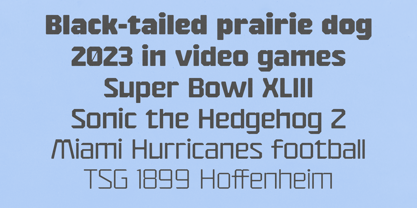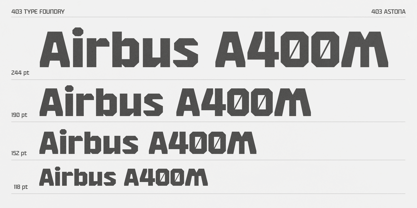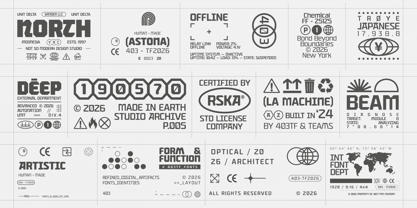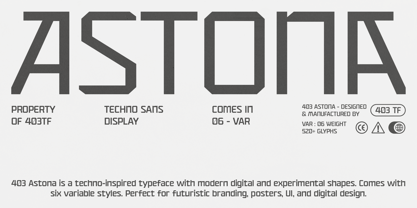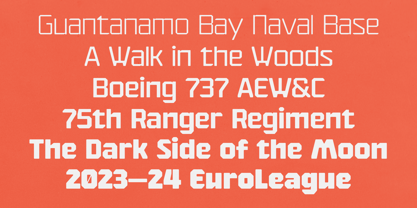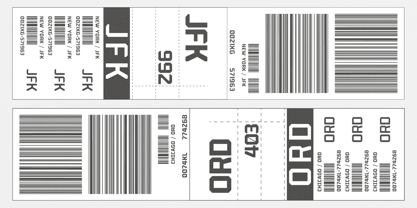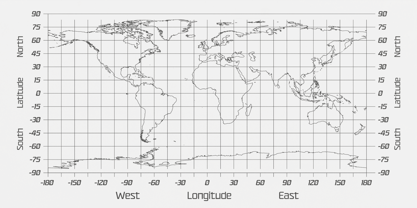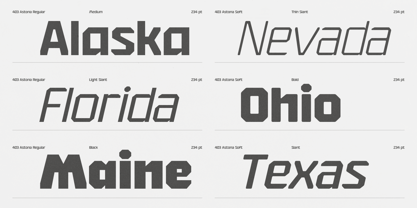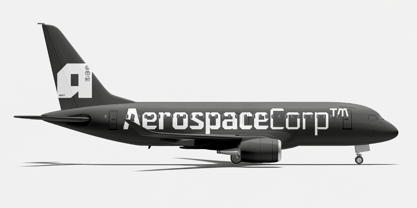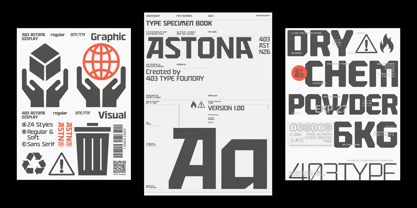
403 Astona
by 403TF
The 403 Astona Font Family was designed by Umar Al Farouq, Jodi El Ghazi, Febri Riansah and published by 403TF. 403 Astona contains 24 styles and family package options. More about this family
403 Astona is the definitive techno display sans built for the intersection of high-performance utility and brutalist aesthetics. This typeface commands attention through its rigid structural integrity and modern digital soul. It is the essential tool for creators who need to balance industrial strength with futuristic sophistication in every frame.
The design of 403 Astona explores the concept of a techno-inspired typeface through a lens of extreme durability and technical precision. Inspired by the rugged requirements of trail running gear and the cold efficiency of industrial labeling, its construction features high-contrast geometry and experimental shapes. Whether in its razor-thin weights or the massive presence of the black styles, the font maintains a mood of calculated, forward-thinking movement. By blending the grit of brutalism with modern digital refinement, the typeface feels like a relic from a high-tech future.
This typeface is meticulously crafted for professionals in tech-wear branding, aerospace identity, and modern editorial design. It excels in environments where information must feel like a refined digital artifact, such as technical specs on technical apparel, complex boarding pass interfaces, or high-concept UI. From trail run marketing to brutalist posters, 403 Astona serves as a versatile anchor for both functional signage and expressive display work for contemporary creators.
Feature Breakdown:
• 24 Comprehensive Styles: A vast range including Thin, Regular, and Black weights with Slant and Soft variations.
• Variable Axis Control: Built as a variable typeface for maximum flexibility in modern design workflows.
• Global Language Support: Fully compatible with 341 languages to ensure worldwide accessibility for any project.
• Extensive Glyph Set: Features 870 glyphs per style for deep typographic detail and technical symbols.
• Optimized for Performance: Engineered for high-legibility across digital interfaces and physical print artifacts.
• Dual Aesthetic Options: Toggle between sharp industrial edges and Soft variants for varying aesthetic moods.